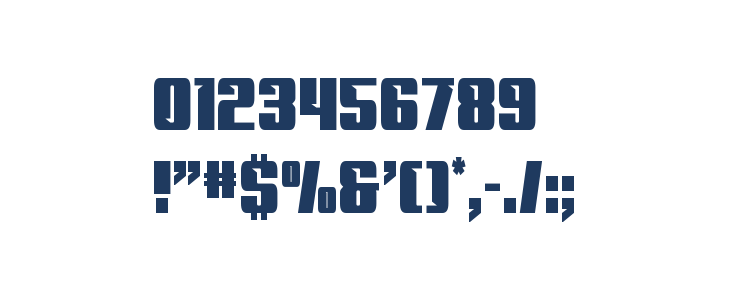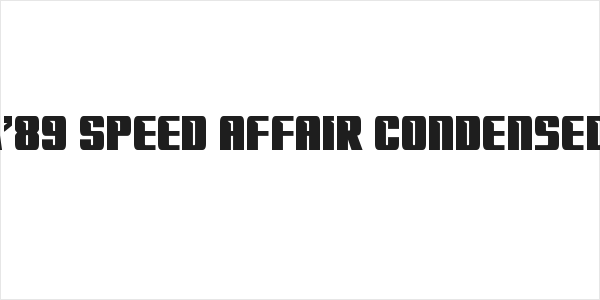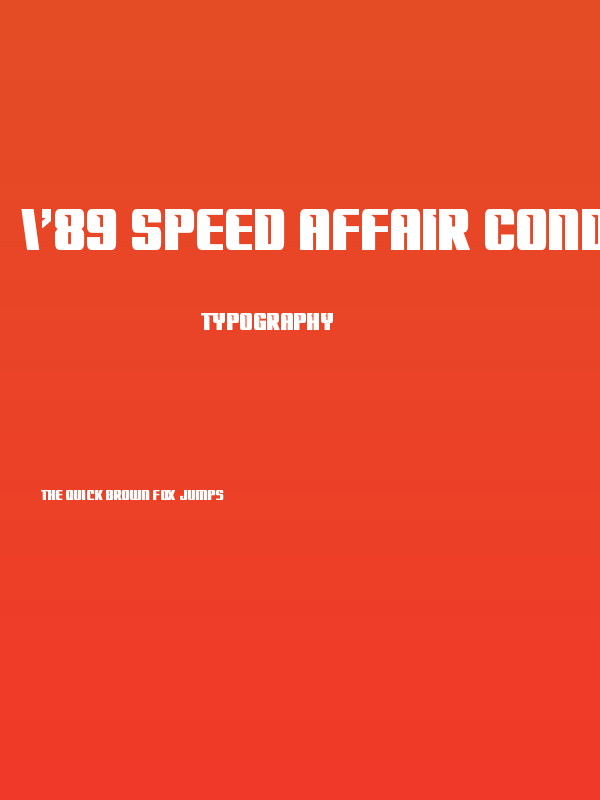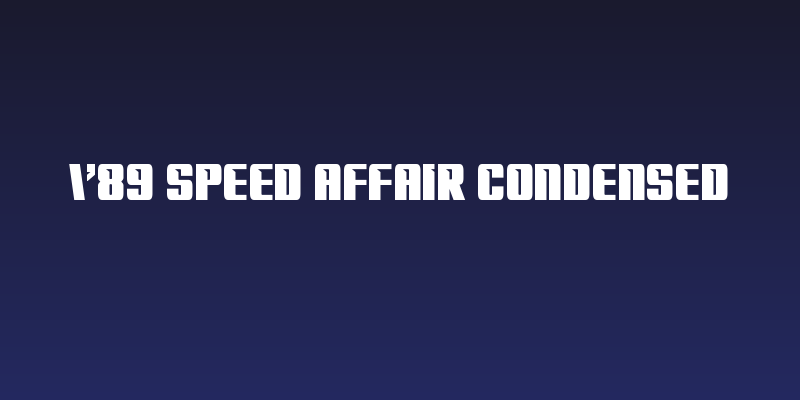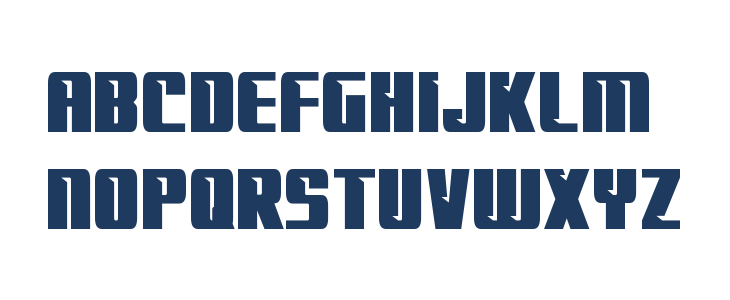
'89 Speed Affair Condensed Font
'89 Speed Affair Condensed Description
This font features a bold, condensed style with a strong geometric influence. The characters are blocky and robust, with minimal curves, giving them a powerful and impactful appearance. The uppercase and lowercase letters maintain a consistent height, contributing to a uniform look. The numerals and special characters are designed to match the boldness of the alphabet, ensuring a cohesive visual experience. The font's condensed nature allows for efficient use of space, making it suitable for headlines and other applications where space is limited but impact is desired.
Proposed ProjectsIdeal for sports branding, posters, and dynamic headlines.